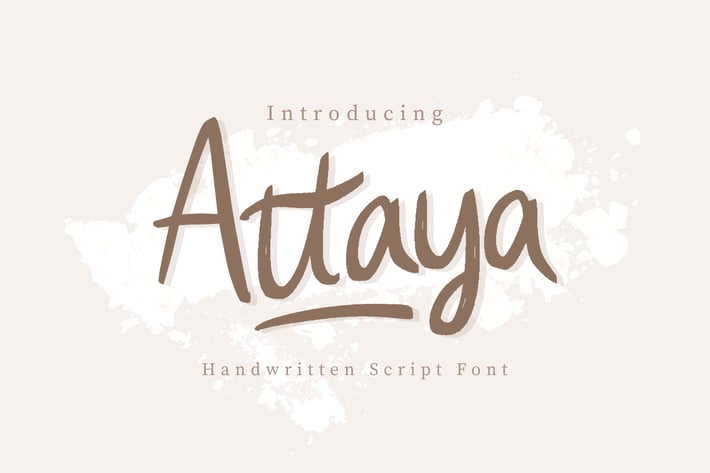
Attaya Handwritten Font
Attaya is a fun and lovely font type, it's a perfect fit for the beauty facial, love and nature theme, product packaging, healthy food - or a stylish text overlay to any background image. It's also could be good for both fun and semi-formal text.
Attaya Features:
+ Font type with fun and lovely character.
+ Ligatures
+ Alternate Fonts
+ Numbering and Punctuation
+ A set of 26 hand-drawn swashes, the perfect finishing touch to underline your Attaya text. Simply install this as a separate font, select it from your font menu and type any a-z character to create a swash.